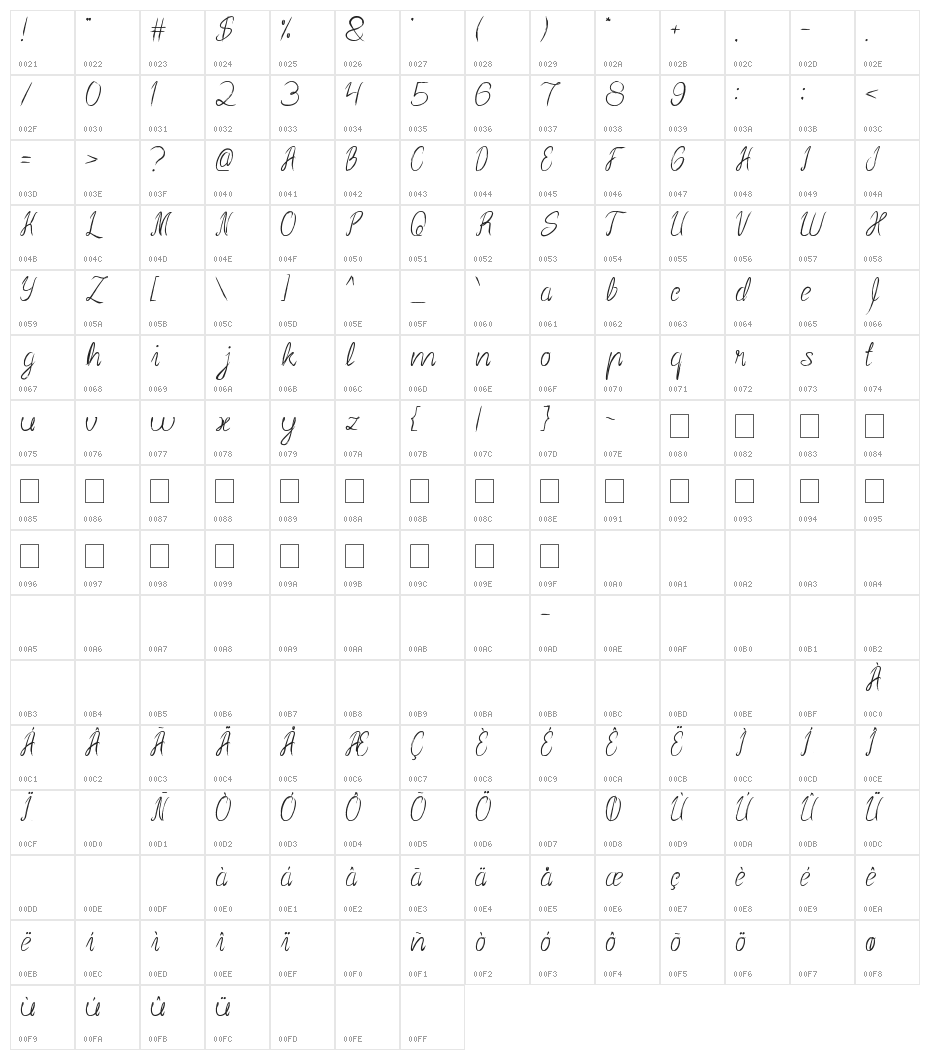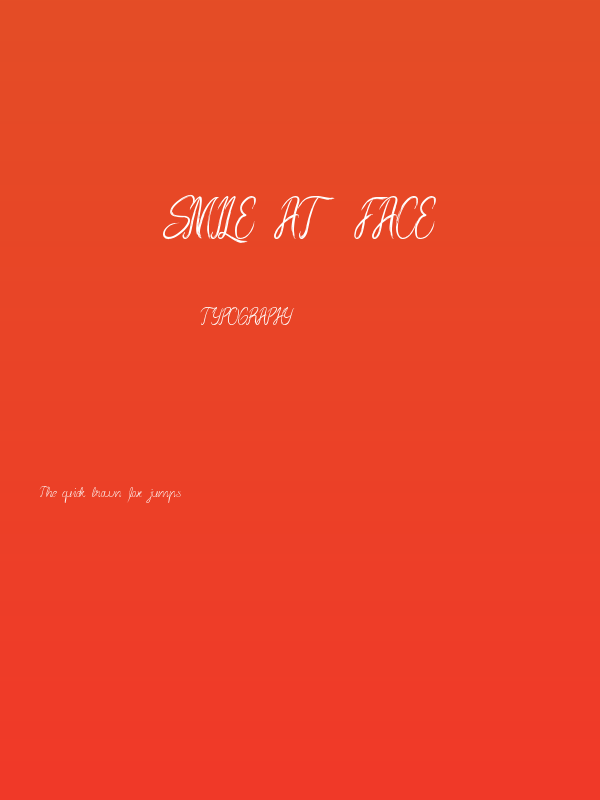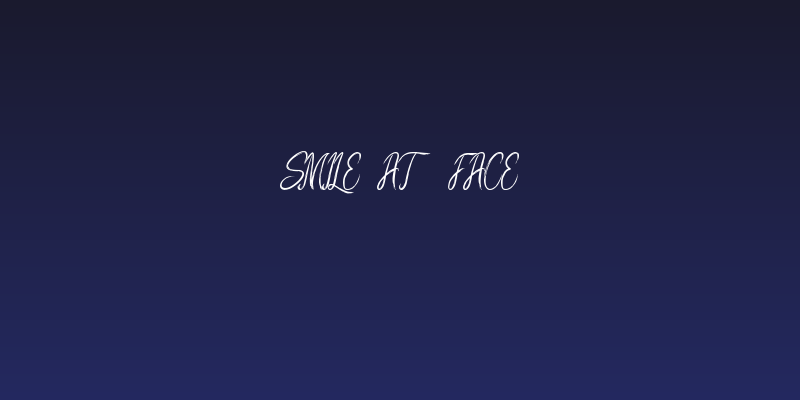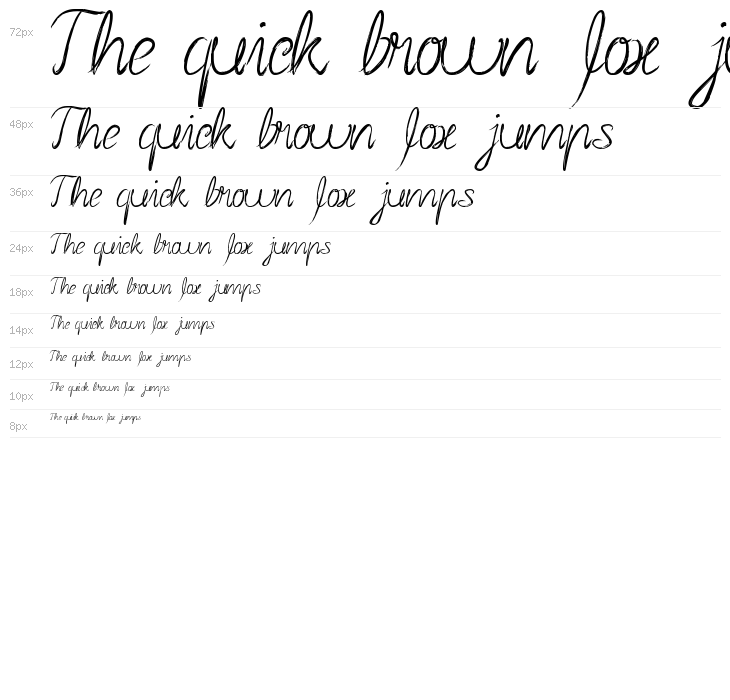
Smile at face Font
Smile at face Description
This font exudes a lively and expressive character, featuring fluid, cursive strokes that mimic natural handwriting. The letters are elegantly connected, creating a seamless flow that enhances readability while maintaining a personal touch. The uppercase letters are bold and slightly larger, providing a striking contrast to the more delicate lowercase letters. Numbers and special characters are crafted with the same attention to detail, ensuring consistency across all elements. The overall design is both sophisticated and approachable, making it suitable for a variety of creative projects.
| Proposed Projects | Ideal for wedding invitations, greeting cards, personal branding, and artistic projects requiring a handwritten feel. |